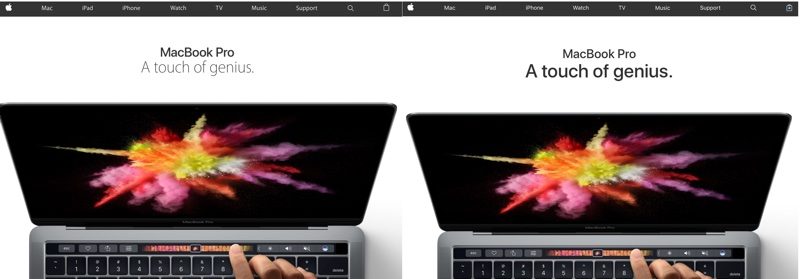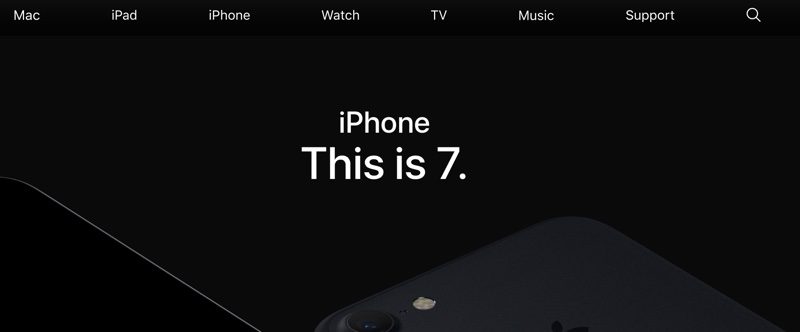
As of today, Apple has started changing the typeface on its Apple.com website to San Francisco, the font it first debuted alongside the Apple Watch in 2015.
On Apple's homepage and other web pages on the site, the San Francisco typeface is being used in many places where text is displayed, replacing the previous Myriad typeface. Bolder and easier to read, San Francisco has been used on iOS devices and Macs since iOS 9 and OS X 10.11 were introduced in 2015.
San Francisco is a condensed sans-serif that's similar to Helvetica. It was created specifically for small displays like the Apple Watch, with extra spacing between letters to increase legibility. It also works well on larger Retina displays because of its clean design.
Apple's website with old Myriad typeface on left, new San Francisco typeface on right​
San Francisco is the first font Apple has designed in-house in many years. In the 80s and 90s, Apple used several fonts that were created in-house, but the company largely stopped making its own fonts in the early 1990s.
Apple isn't yet using the San Francisco typeface for its entire website, but may continue the transition over the coming days.
Wasn't a fan of San Fransisco when they first introduced it and I'm still not fussed on it now. It's always looked like a weird Frankenstein between Helvetica and Comic Sans. Far too playful (for lack of a better word) to be used as a company font in my opinion.
Looks awful to me... could be because I am viewing it on their non-retina 27" LED Cinema display? In general fonts don't seem to render cleanly since somewhere around Snow Leopard.
Theyve rolled the San Francisco website before its ready, similar to a lot of their products recently.
Almost as much spacing between those ugly letters as there is between Mac Mini updates!
Ahhhhhh HA HA HA HA!!! It looks like something a first year graphic arts student would make and then watch it get thrown in the trash by the instructor. Could also be an iWeb site from 2007!!!! Oh my god its bad! Just look at the gap between the lines!!! Apple goes further and further into the abyss.